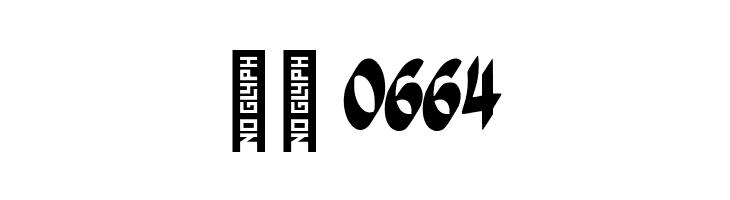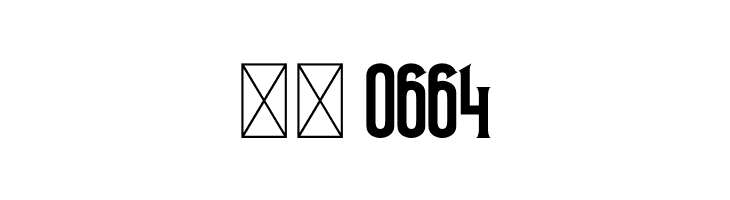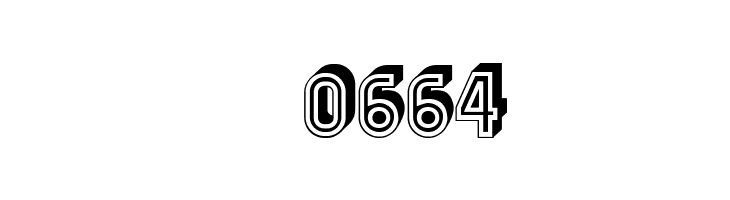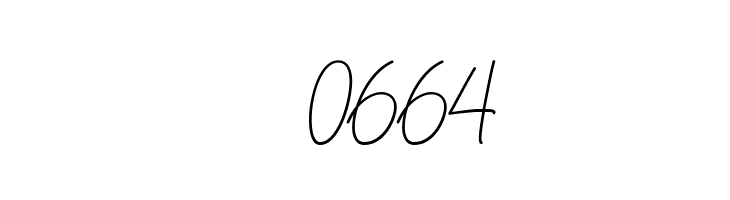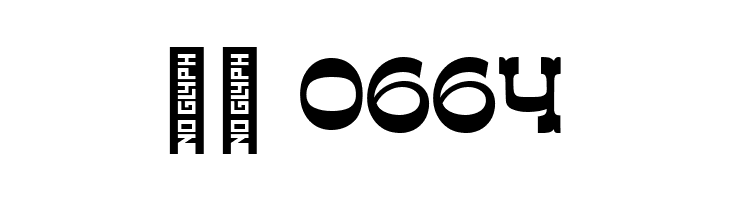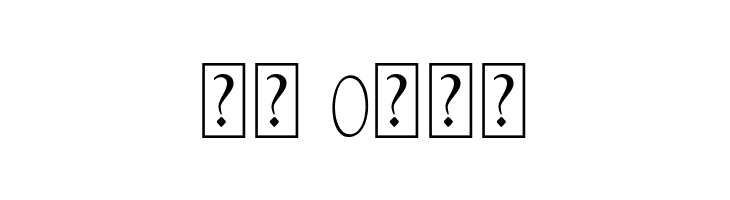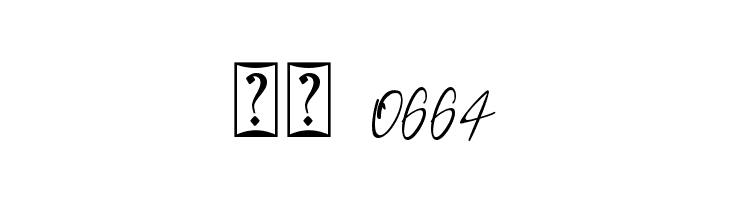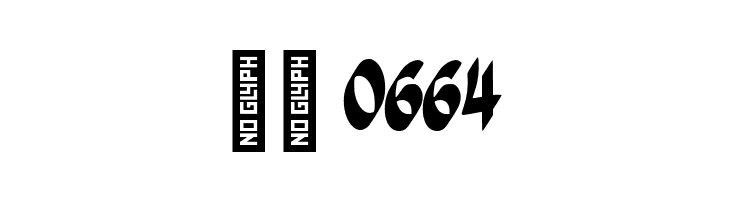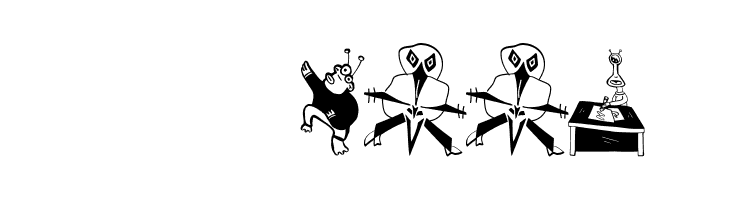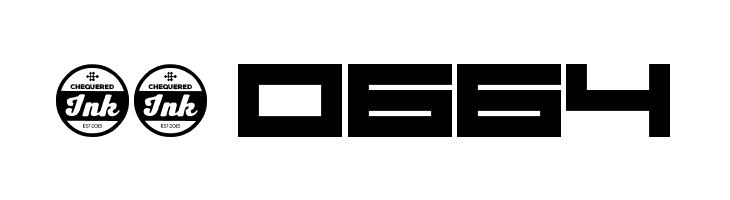
A bold, expressive brush-style font with dynamic, handcrafted strokes.
A bold, brush-style font with dynamic, hand-painted strokes.
A bold, distressed font with a hand-painted, artistic style.
A modern, decorative font with diagonal stripe patterns in each character.
A dynamic and flowing script font with elegant cursive letterforms.
A bold, distressed font with a dripping ink effect, perfect for grunge or horror themes.
A classic serif font with sharp serifs and medium contrast, exuding elegance and sophistication.
A bold, three-dimensional font with a modern, geometric style.
A playful, elegant script font with a handwritten style.
A bold, 3D font with shadow effects and a modern, geometric style.
A dynamic and expressive handwritten font with fluid, spontaneous strokes.
A bold, geometric font with angular shapes and outlined elements for a modern look.
A cursive, handwritten-style font with elegant, flowing strokes.
An abstract, geometric font with intricate patterns and high contrast.
A whimsical, bird-themed decorative font with bold, angular lines and contrasting patterns.
A bold, playful font with wide, rounded characters and a whimsical style.
A whimsical and artistic collection of decorative characters and illustrations.
A decorative, hand-drawn font with a distressed, textured effect.
A futuristic, angular font with bold, geometric shapes.
A bold, blackletter-inspired font with sharp, angular lines and intricate detailing.
A bold, angular blackletter-style font with dramatic strokes and intricate details.
A bold, 3D italic font with a filled interior and thick outlines.
A bold, 3D-filled font with a vintage yet modern geometric style.
A bold, 3D italic font with a modern, dynamic style.
A bold, 3D font with a geometric, blocky style and strong outlines.
A bold, italic font with sharp angles and a modern, dynamic style.
A bold, geometric font with strong, angular lines and a modern aesthetic.
A lively and fluid handwritten font with elegant, flowing letterforms.
A bold, angular font with a gothic influence and pointed serifs.
A bold, Gothic-inspired font with sharp, angular lines and strong vertical strokes.
A dynamic and elegant script font with fluid strokes.
A dynamic, flowing script font with a handwritten, artistic style.